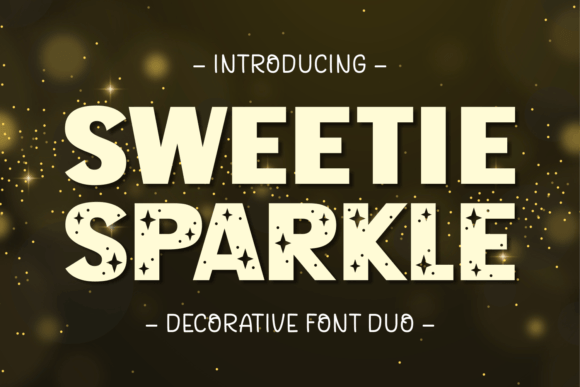
Prepare yourself to be mesmerized by Sweetie Sparkle, a decorative font that radiates brilliance and leaves an unforgettable impression on your designs. Embrace the captivating charm of this contemporary font, meticulously crafted to ignite creativity and elevate your projects to new heights. Get ready to dazzle and enchant your audience with Sweetie Sparkle, the ultimate font for those who crave distinction and desire to make a bold statement.
Visualize your designs sparkling with elegance, capturing the attention of all who lay their eyes upon them. Sweetie Sparkle's meticulously crafted letterforms dance across the page, exuding an aura of sophistication and allure. Its sleek lines and modern aesthetic make it the perfect choice for a wide range of design endeavors, from enchanting invitations to captivating branding that leaves a lasting impact.
Step into the spotlight with Sweetie Sparkle, the font that commands attention and ignites imaginations. Its captivating curves and striking details make it an irresistible choice for those who seek to create designs that resonate with audiences. Let Sweetie Sparkle be your creative companion, guiding you towards design brilliance and leaving your audience spellbound.
Unleash the boundless potential of Sweetie Sparkle and witness the transformation of your designs into masterpieces. Its versatility knows no bounds, adapting seamlessly to a myriad of projects. Whether you're crafting logos that exude professionalism, designing social media posts that radiate vibrancy, or creating marketing materials that demand attention, Sweetie Sparkle is your trusted ally, amplifying your message and leaving an indelible mark on your audience.
With Sweetie Sparkle, you're not just downloading a font; you're unlocking a world of creative possibilities. Its enchanting presence will infuse your designs with a captivating allure, setting them apart from the ordinary and propelling them into the realm of the extraordinary. Embrace the magic of Sweetie Sparkle and embark on a journey of design brilliance, leaving your audience spellbound and eager for more.